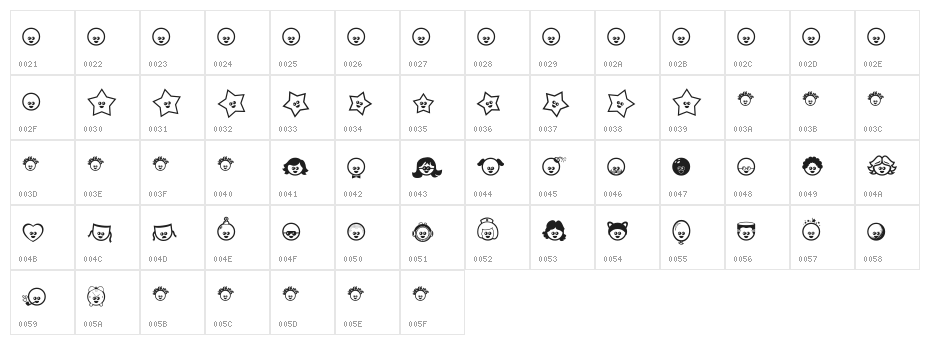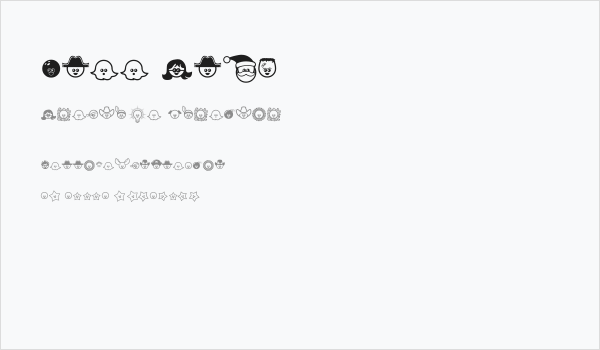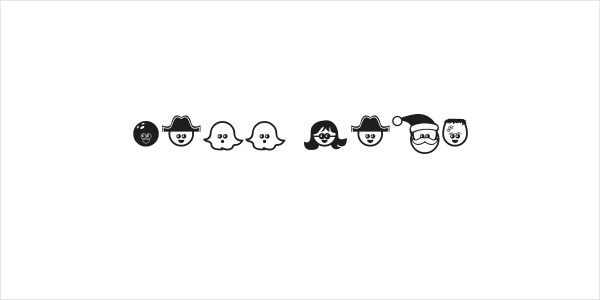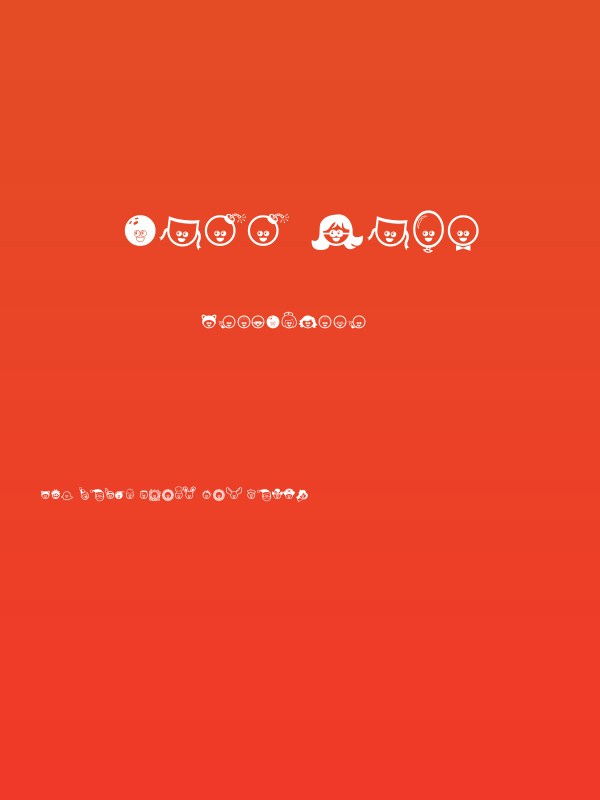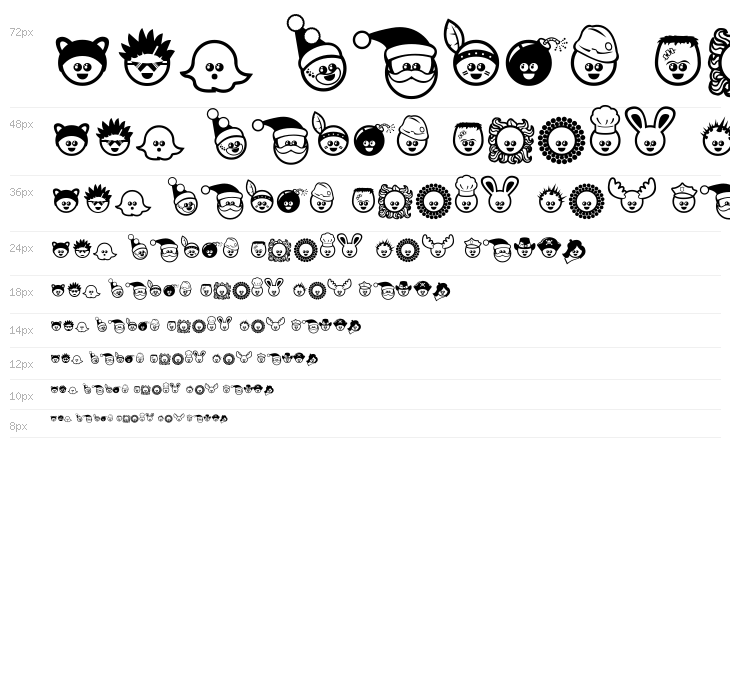
Glee Club Font
Glee Club Description
A playful and whimsical decorative font composed of cartoon-style faces and icons representing each character, with bold outlines and a variety of expressive details. The characters are highly stylized, each with unique costumes or accessories, making the font visually engaging and suitable for informal contexts.
GLEE-CLUB UPPERCASE
GLEE-CLUB LOWERCASE
GLEE-CLUB OTHER CHARS
| Overall Style | Playful, Whimsical, Decorative |
| Use Case | Headlines, Logos, Posters, Invitations |
| Proposed Projects | Children’s books, party invitations, posters, educational materials, playful branding. |